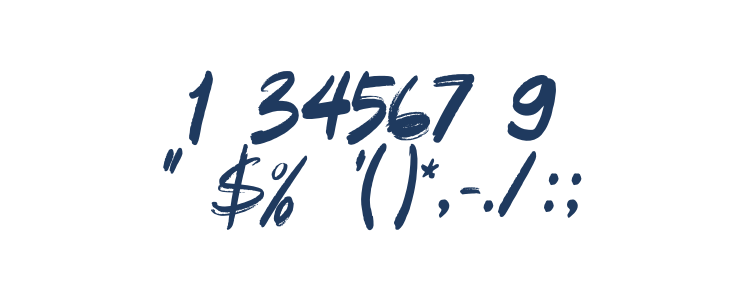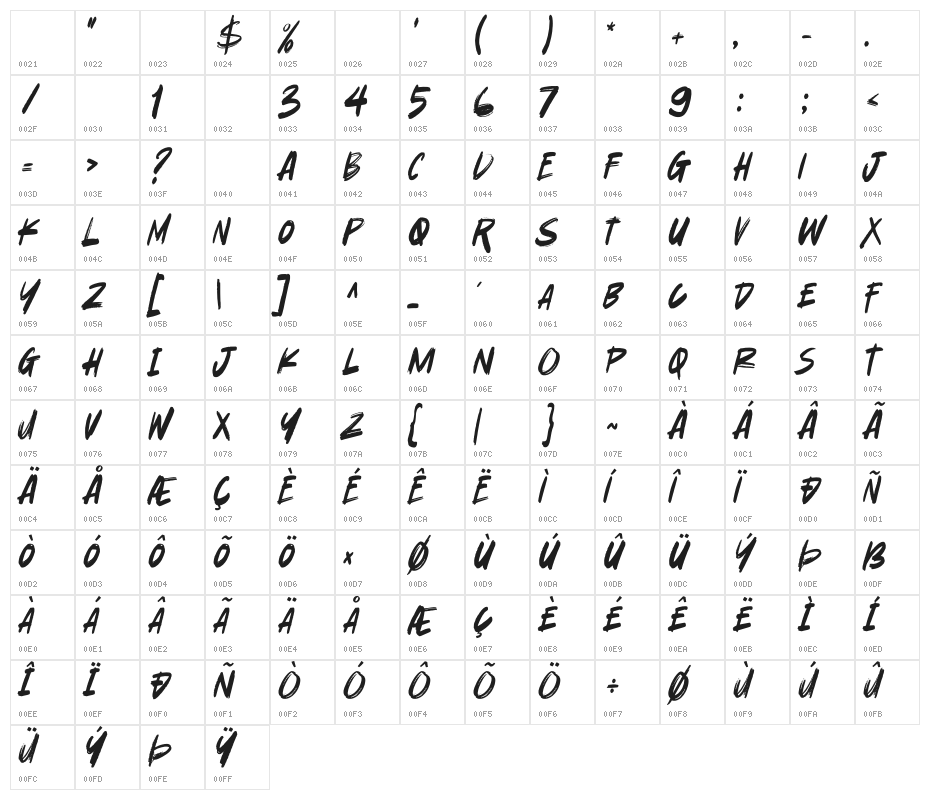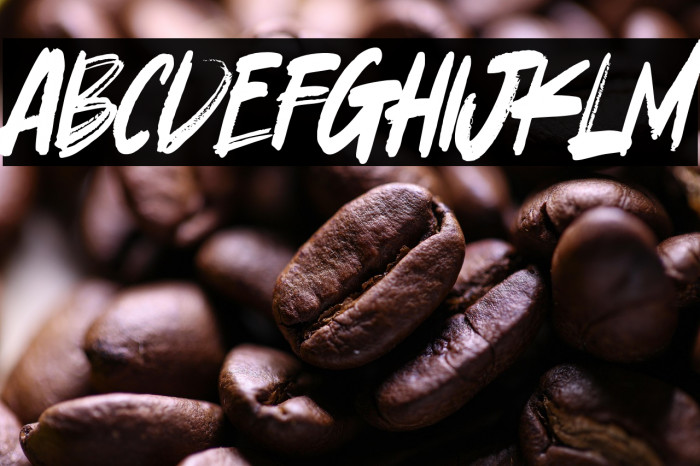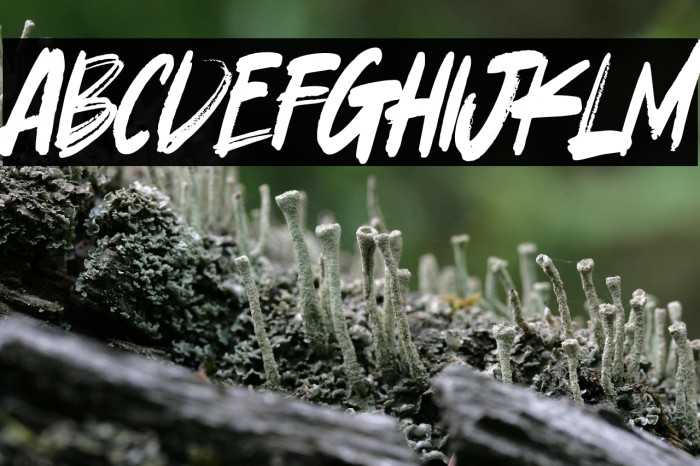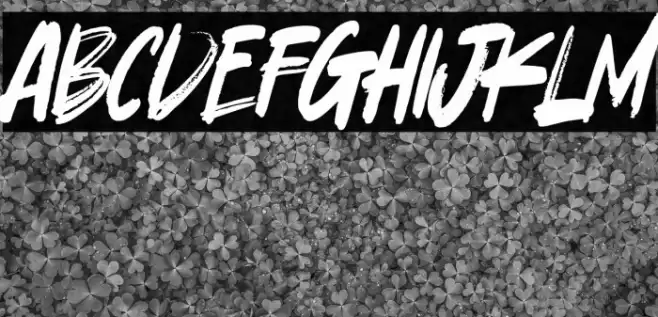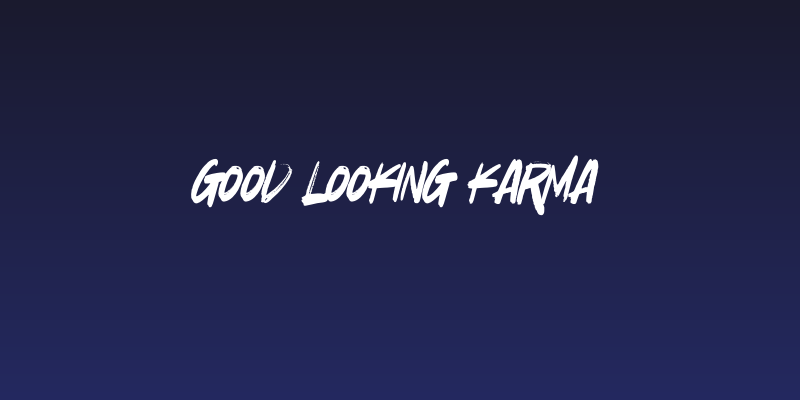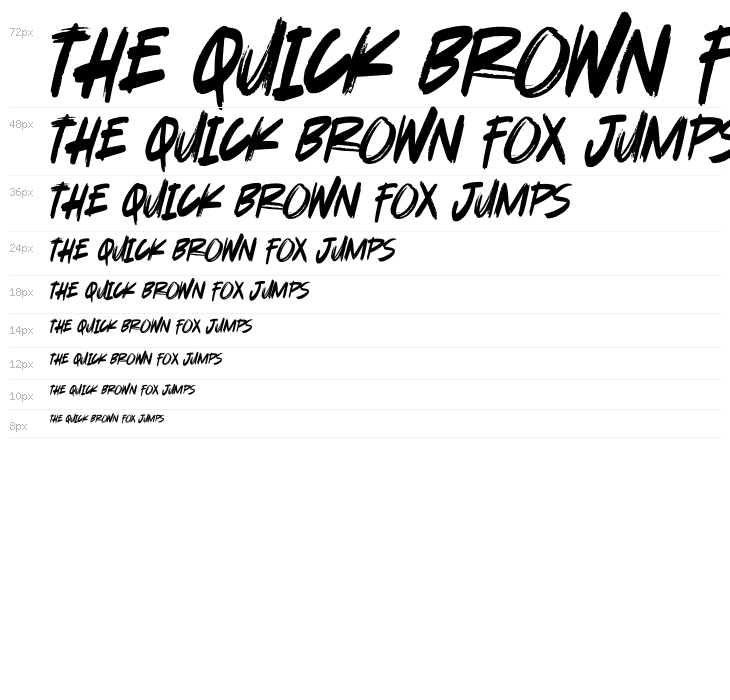
Good Looking Karma Font
Good Looking Karma Description
This font features a bold and energetic brush script style, characterized by its dynamic strokes and expressive letterforms. The uppercase and lowercase letters are crafted with a sense of movement, giving a lively and informal appearance. The strokes are thick and vary in width, creating a high contrast that adds to the font's dramatic flair. The characters are slightly slanted, enhancing the handwritten feel. The numbers and special characters maintain the same energetic style, making the font versatile for various creative applications.